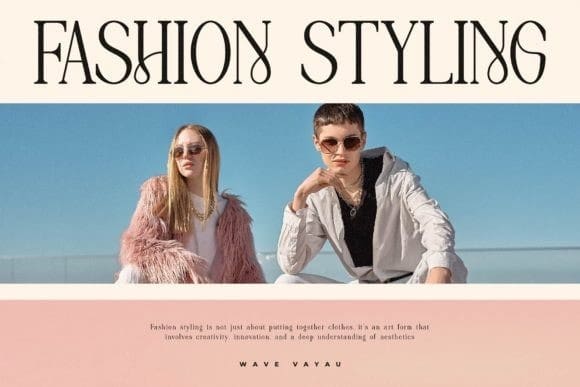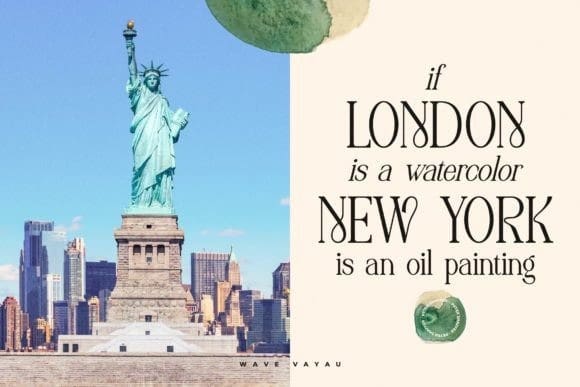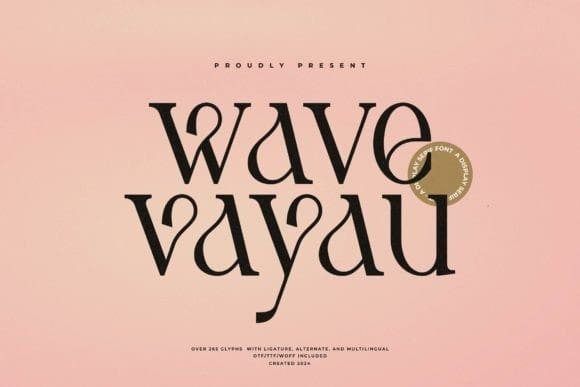
Wave Vayau Font
Wave Vayau Font is a display serif font with stylish, bold letters. It has thick lines and sharp edges, giving it a strong and elegant look, perfect for titles, logos, and designs that need to stand out.